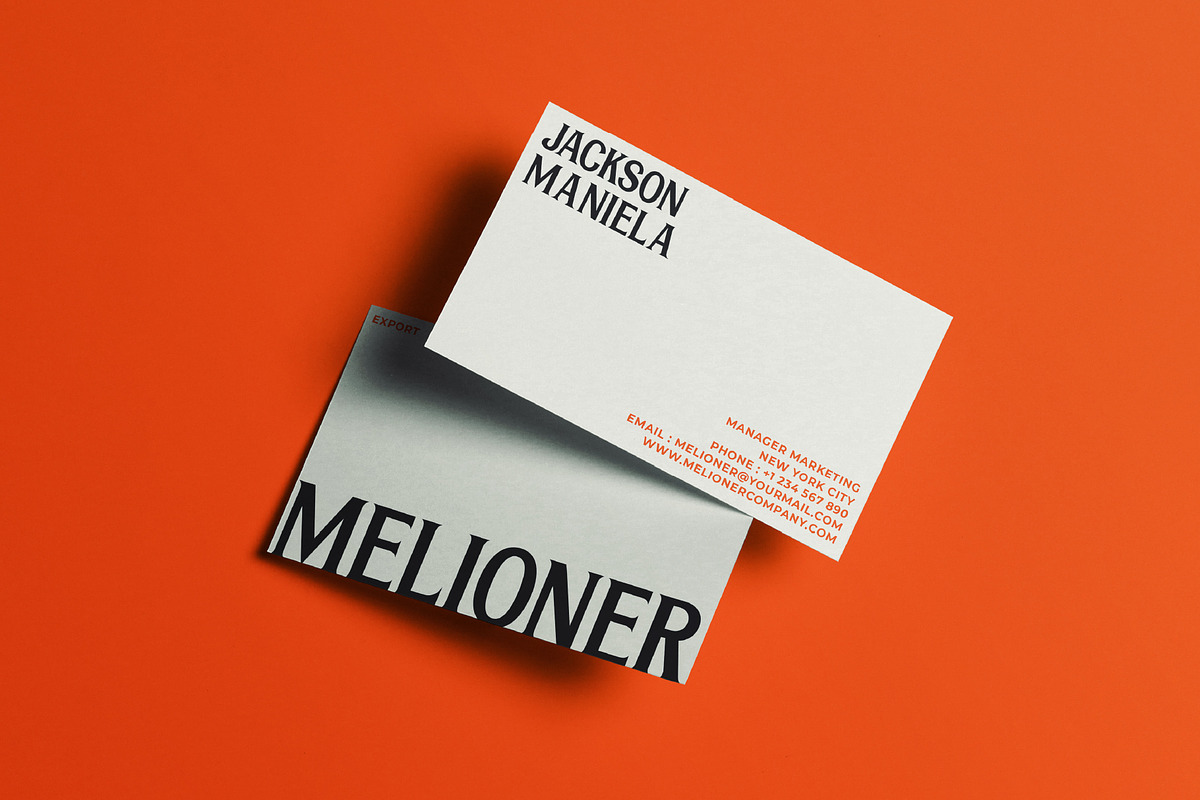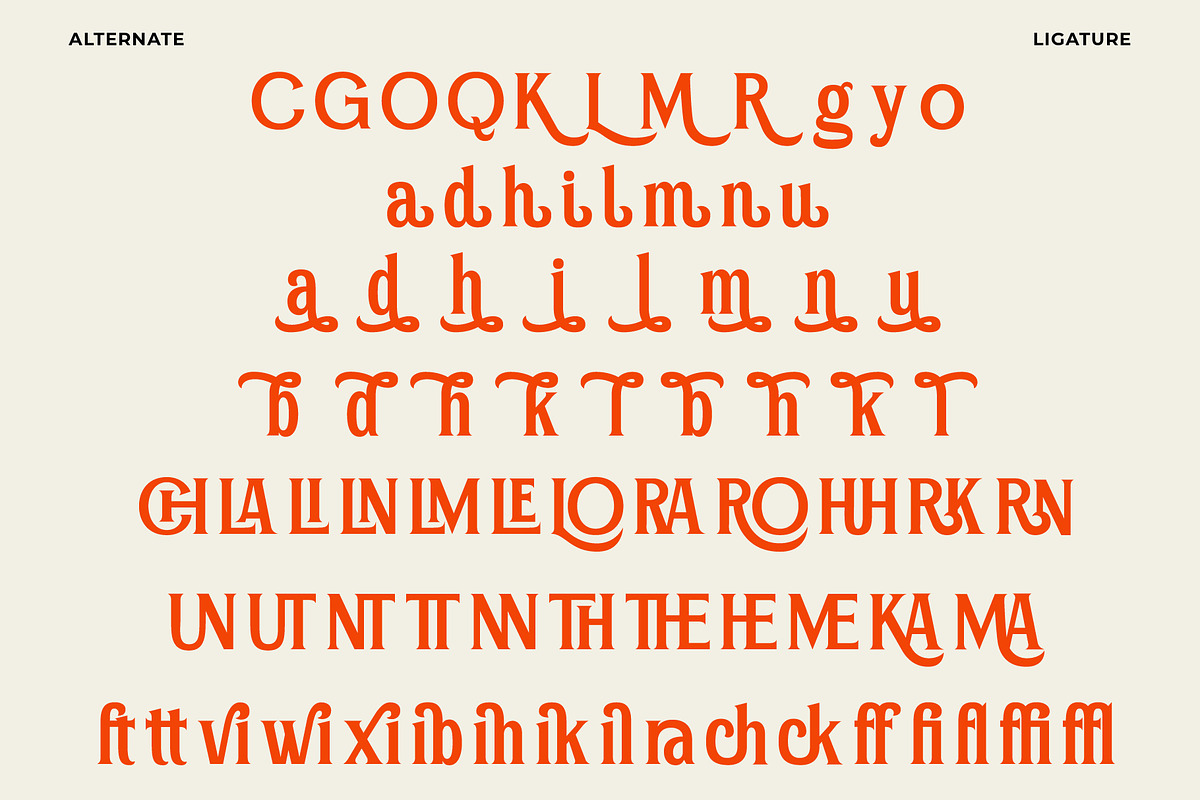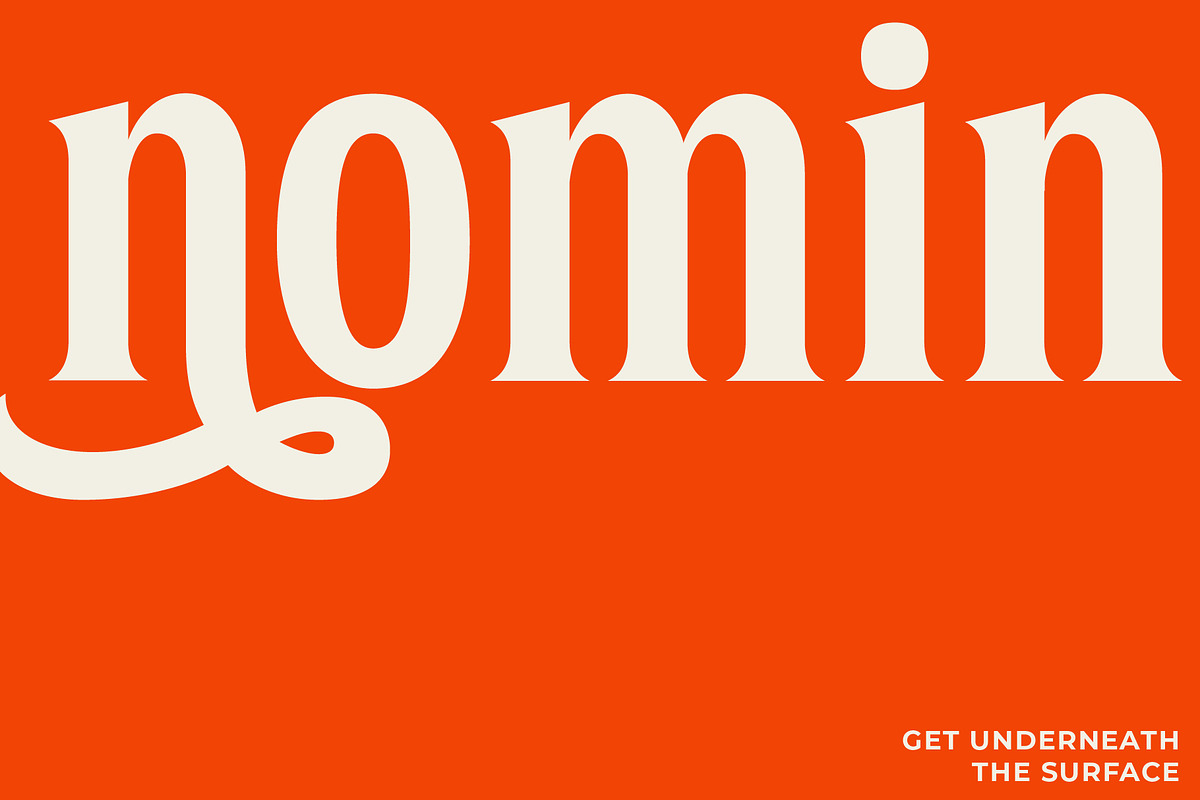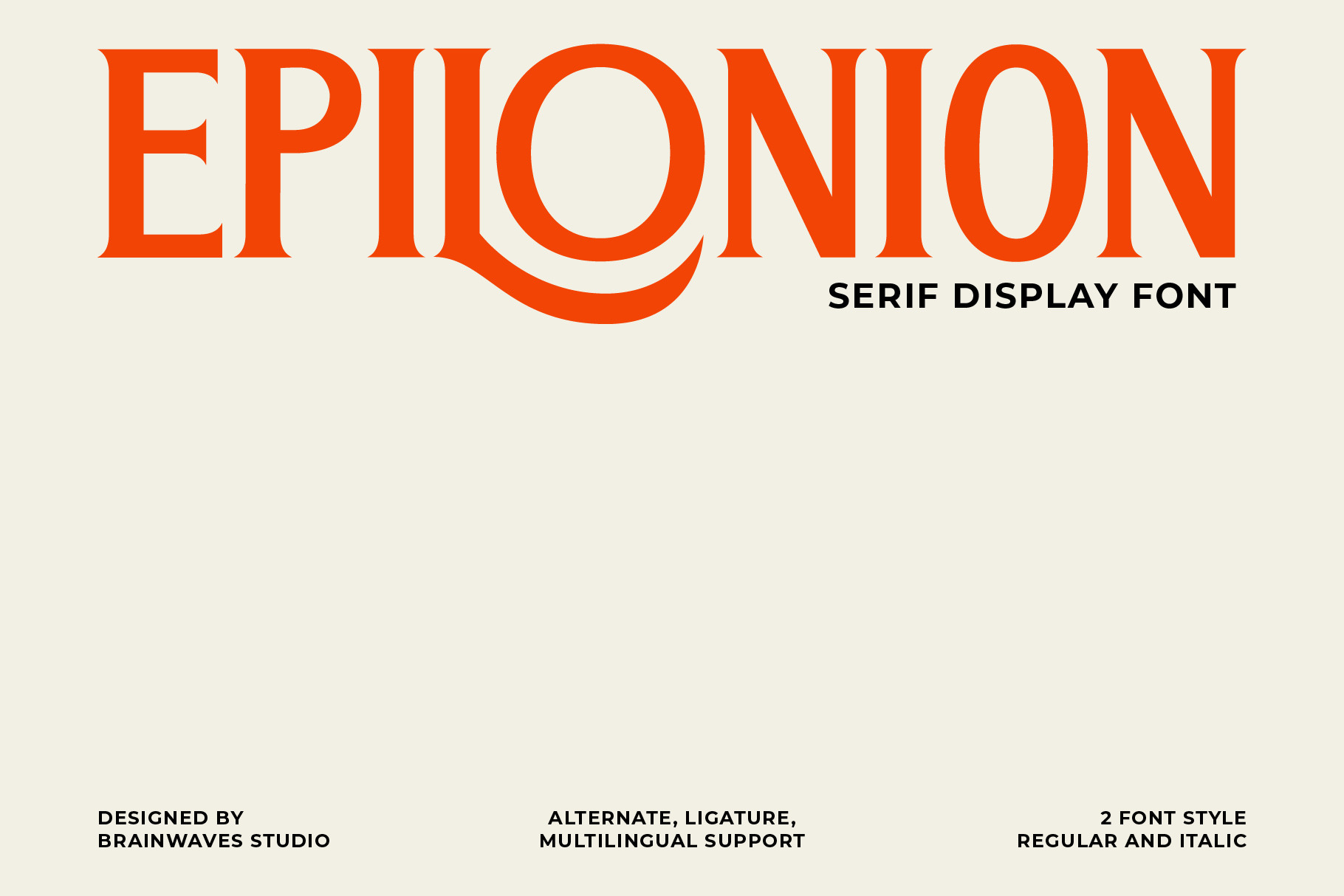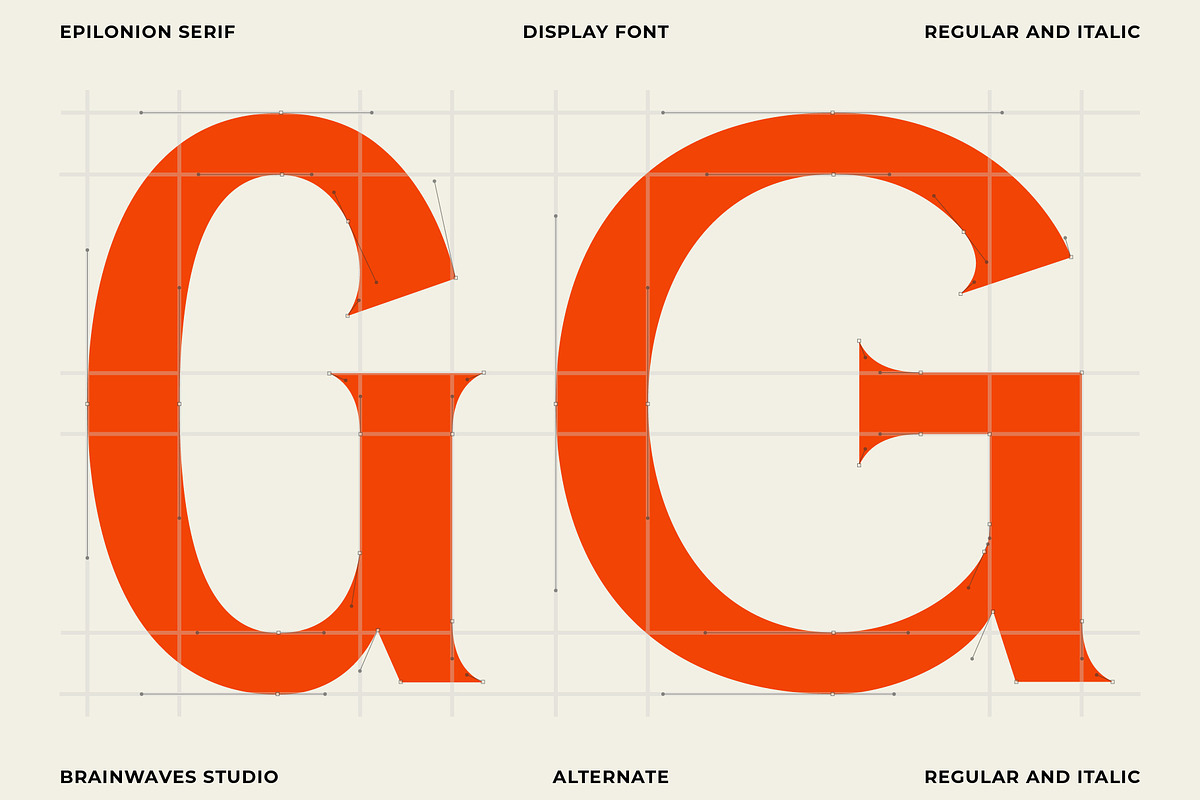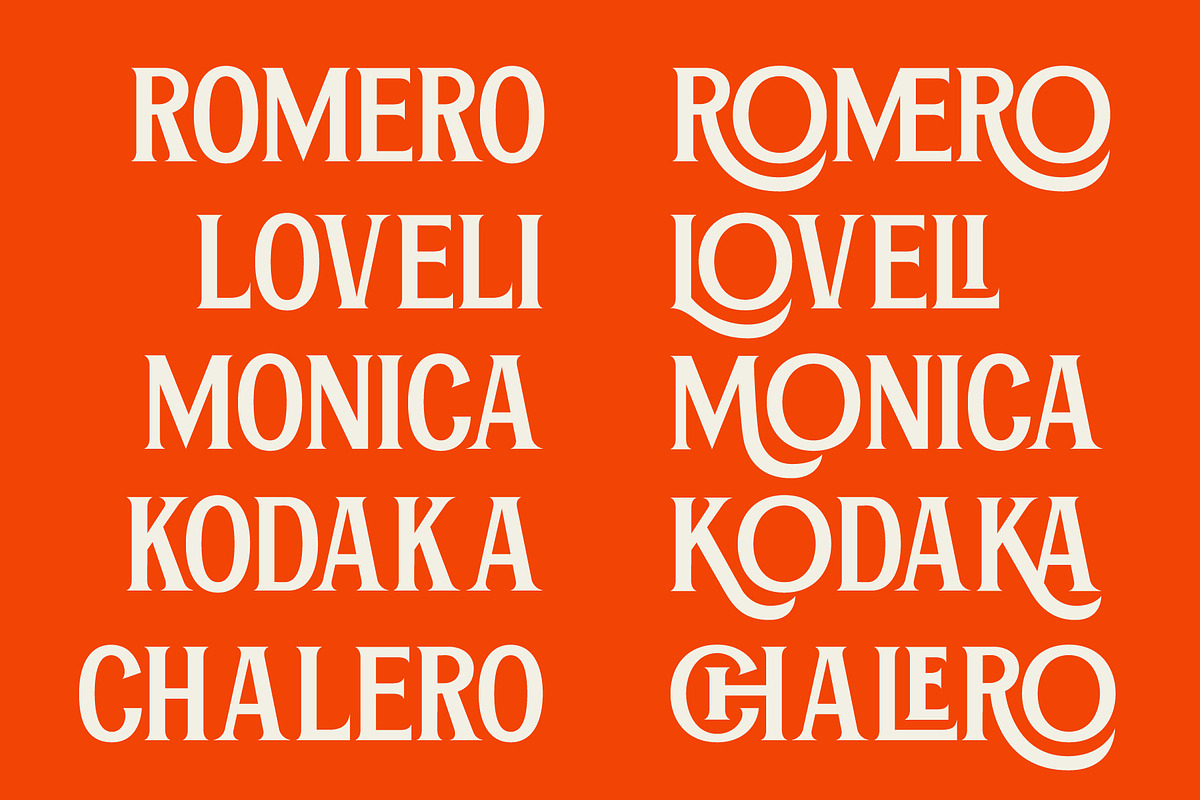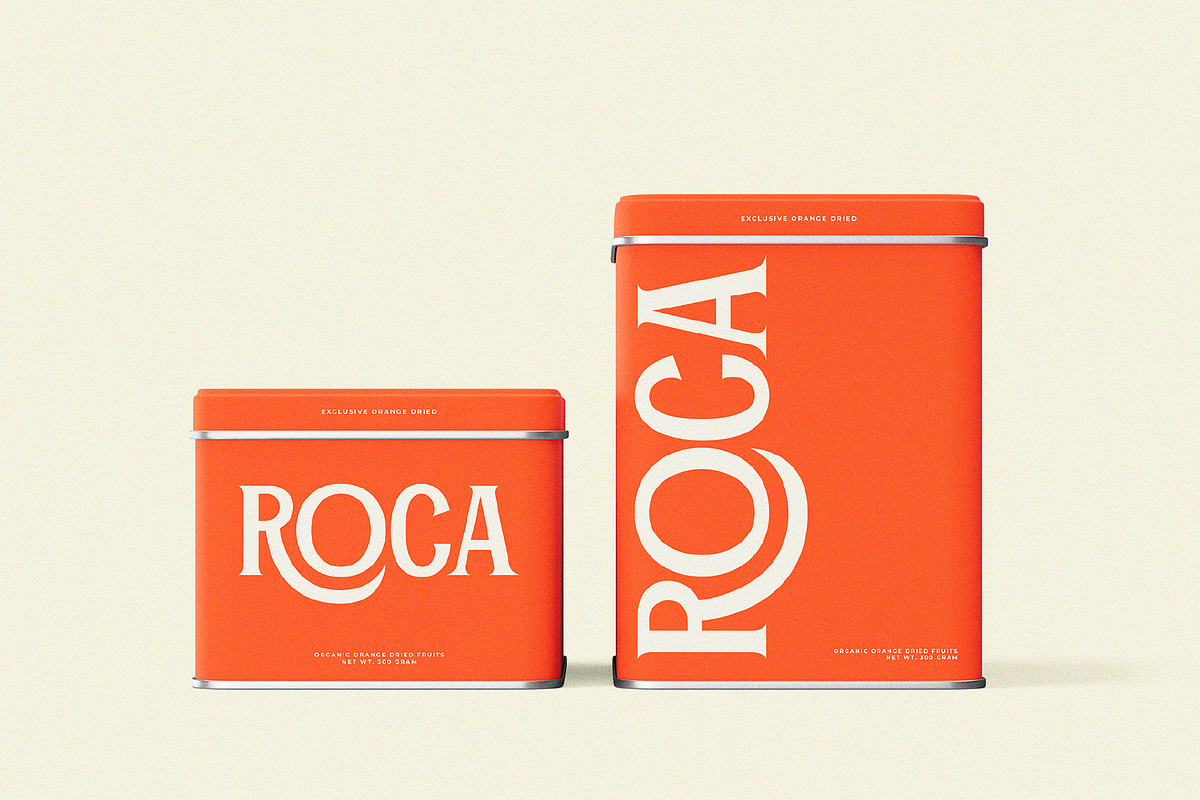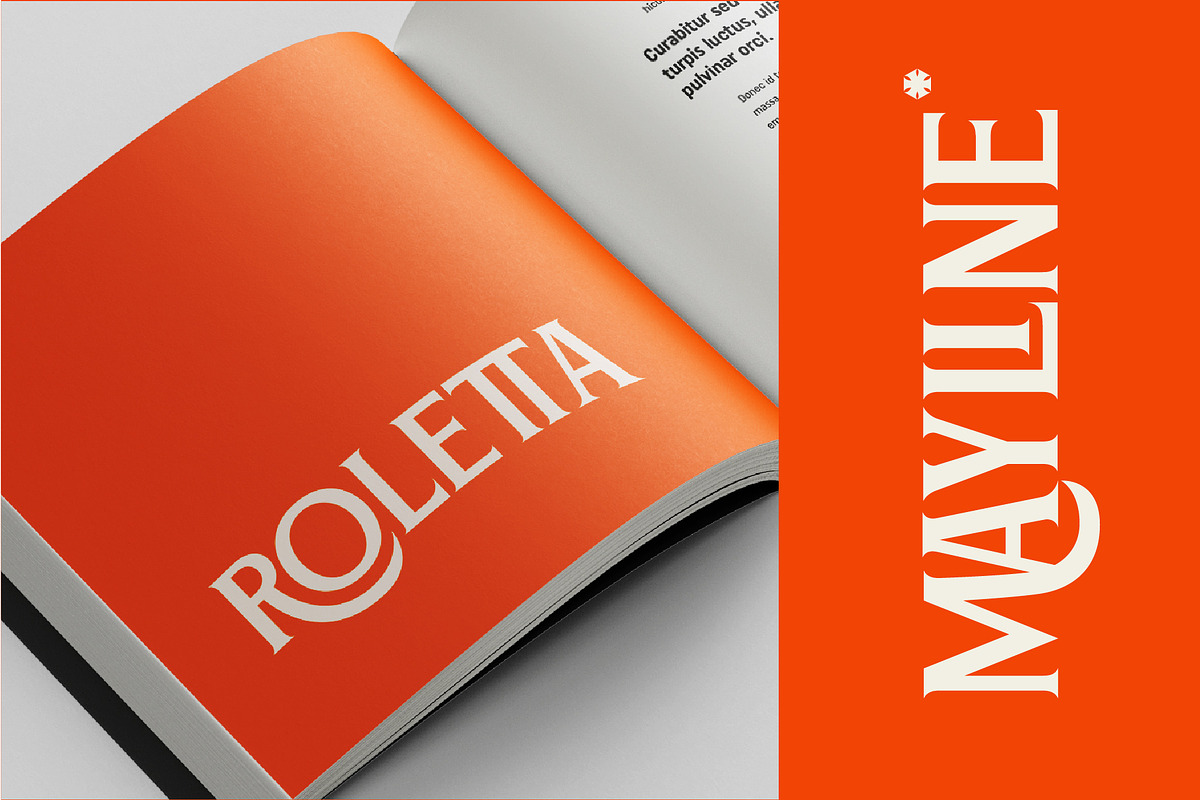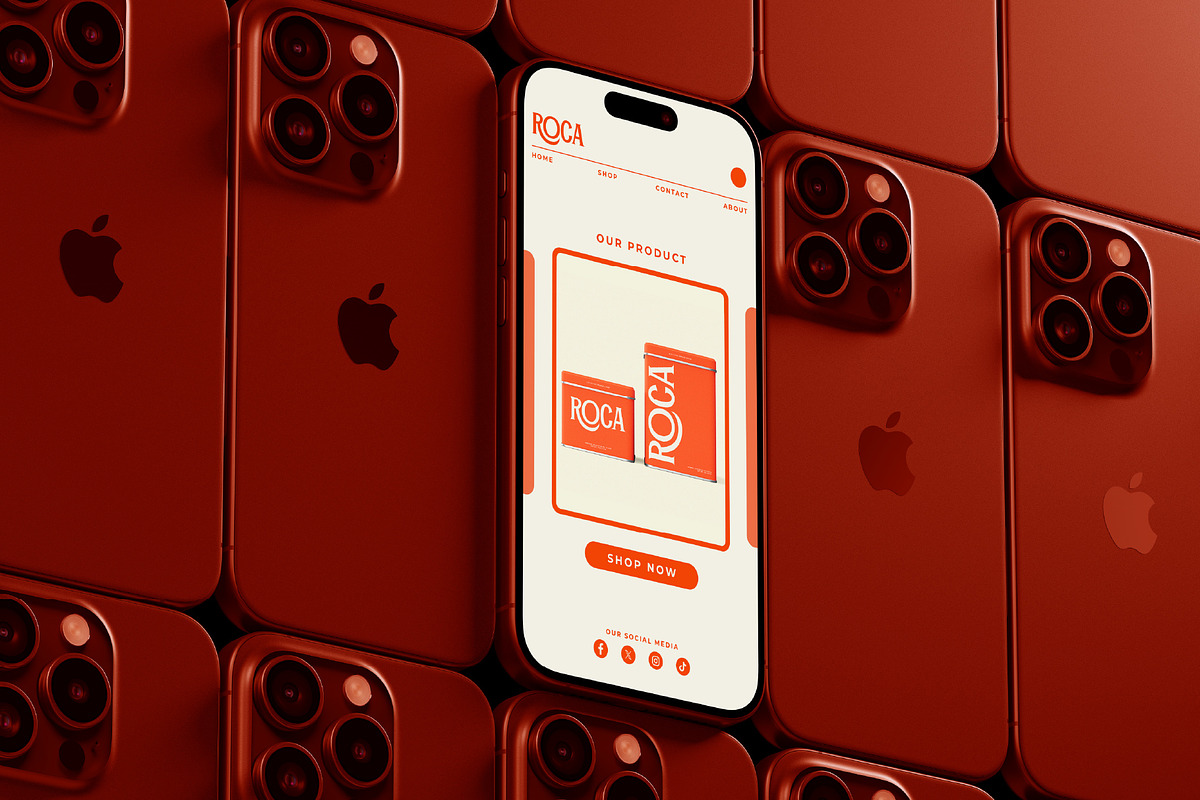
Epilonion - Serif Display Font
Epilonion Serif Display Font is a striking typeface that blends sleek, modern shapes with a touch of retro charm. Its minimalist design features refined serifs, ensuring elegance and readability, making it ideal for logos, posters, and visual branding. With thoughtfully crafted alternate ligatures and multilingual support, Epilonion adds unique flair to your text and resonates across diverse audiences. Elevate your design projects with this harmonious blend of modernity and nostalgia that stands out in any context.